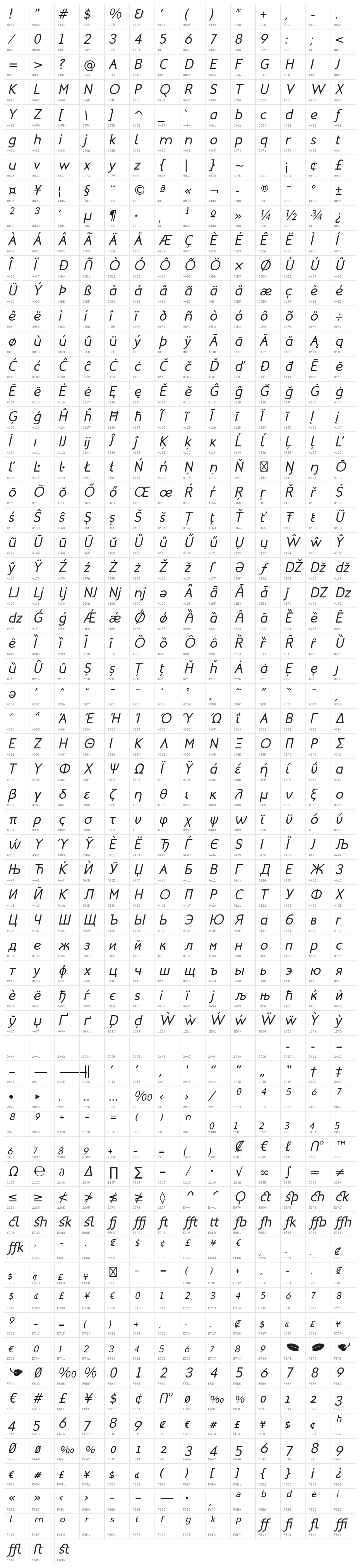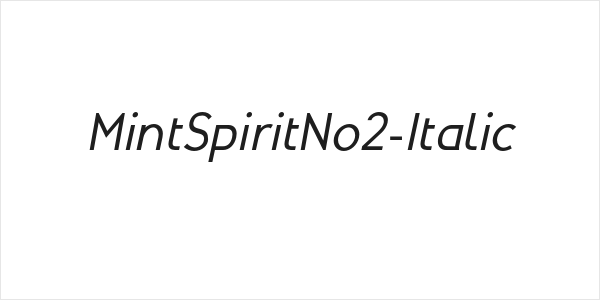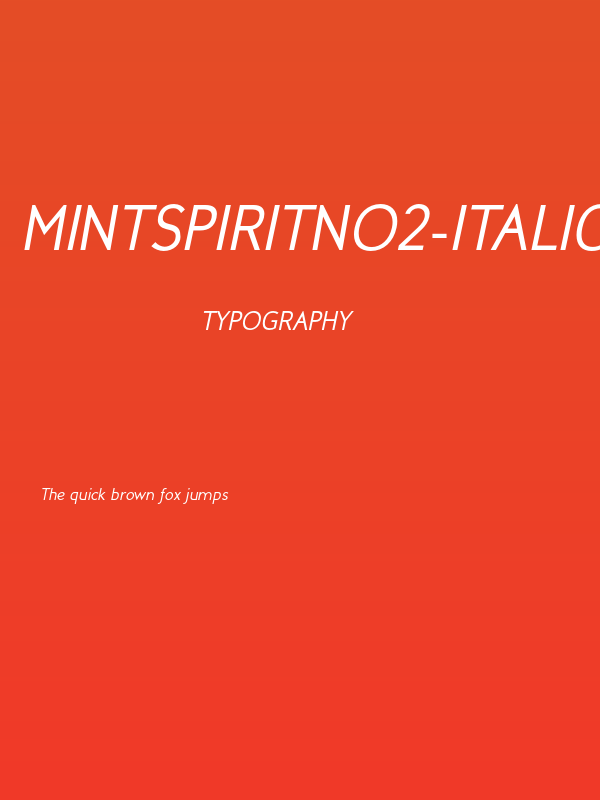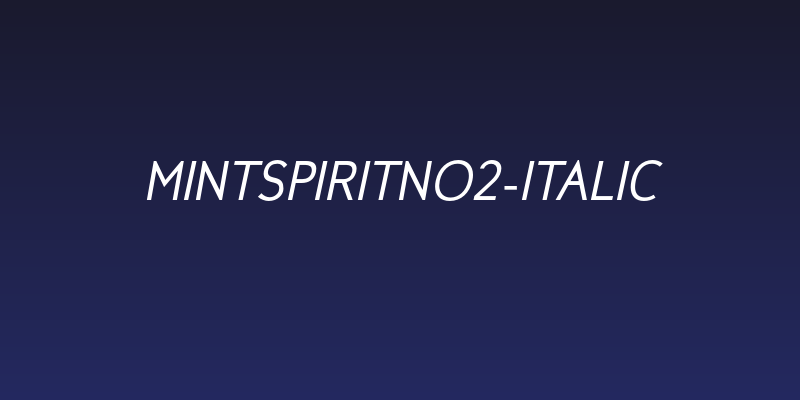
MintSpiritNo2-Italic Font
MintSpiritNo2-Italic Description
This font features a sleek and modern design with a slight italic slant, giving it a dynamic and elegant appearance. The characters are crafted with smooth curves and a consistent stroke width, providing a clean and professional look. The uppercase letters are tall and slightly condensed, while the lowercase letters maintain a harmonious balance with a slightly rounded feel. Numbers are clear and easy to read, making them suitable for various applications. The special characters are well-integrated, ensuring versatility in design projects. Overall, this font exudes a contemporary style that is both functional and aesthetically pleasing.
| Proposed Projects | Ideal for branding, advertising, digital content, and editorial design. |